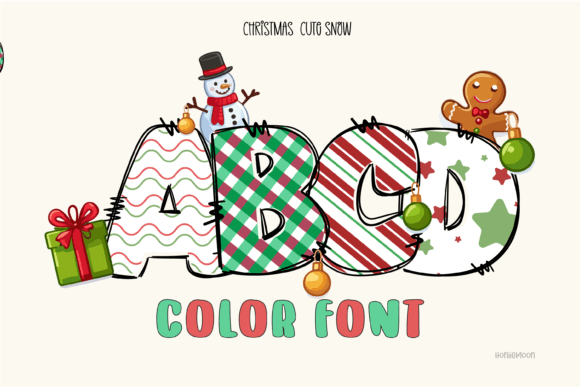
Get Ready to Deck the Halls with Christmas Magic
It’s that time of the year when creativity knows no bounds, and the festive spirit takes over. You’re sipping hot cocoa, surrounded by twinkling lights, and envisioning the perfect holiday design. But, have you ever struggled to find the perfect font to capture the whimsy and wonder of Christmas? That’s where the Christmas Cute Snow Font comes in – a delightful alphabet font designed specifically for festive designs.
With the Christmas Cute Snow Font, you’ll be able to add a touch of magic to your holiday projects, from cards and gift tags to decorations and social media posts. This versatile font is compatible with various cutting machines, making it a valuable asset for designers. Plus, its color version offers endless possibilities for creative expression, making it a must-have for any holiday design enthusiast.
Key Features of Christmas Cute Snow Font
- Unique Characteristics: This font features adorable snowflakes and festive elements, making it perfect for winter-themed designs and Christmas projects.
Designer Review: Christmas Cute Snow Font
✨ The first thing that caught my attention with this font is its festive and playful vibe. It’s perfect for creating a fun and cheerful atmosphere for Christmas-related designs. The font’s unique characters, such as the snowflakes and holly leaves, add a nice touch of whimsy to any project.
✨ Another thing that works well is the font’s versatility. It can be used for a wide range of applications, from greeting cards and social media graphics to merchandise and packaging. The font’s consistency across different sizes and styles makes it easy to work with.
⚠️ One limitation I found is that the font may not be suitable for formal or professional projects. The playful nature of the font may come across as unprofessional or immature in certain contexts.
⚠️ Another limitation is that the font’s characters may not be suitable for smaller text sizes. The intricate details of the characters may become distorted or difficult to read when scaled down.
In general, I think Christmas Cute Snow Font is a great choice for designers looking to create fun and festive designs. However, it’s essential to consider the context and purpose of the project before using this font. With its playful vibe and versatility, this font is perfect for creating cheerful and whimsical designs that are sure to put a smile on people’s faces.
- ✨ Unique and playful vibe
- ✨ Versatile and consistent across different sizes and styles
- ⚠️ May not be suitable for formal or professional projects
- ⚠️ Characters may not be suitable for smaller text sizes
The Christmas Cute Snow Font is ideal for:
Creating festive holiday designs and graphics
Adding a touch of whimsy and fun to holiday messages and invitations
Creating custom holiday social media posts and graphics
Adding a festive touch to holiday presentations and reports